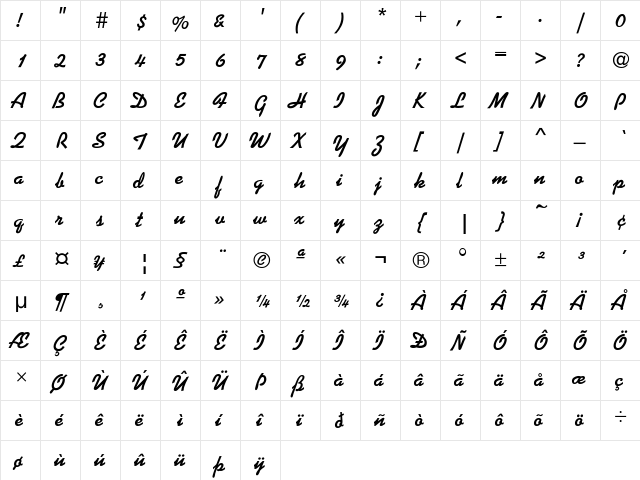
KaufmannBold-Bold Regular
Design Context for KaufmannBold-Bold Typeface
KaufmannBold-Bold takes a measured approach to typography — its balanced proportions and neutral character make it a reliable workhorse for both digital and print work. Its bold stroke weight gives it real presence on the page.